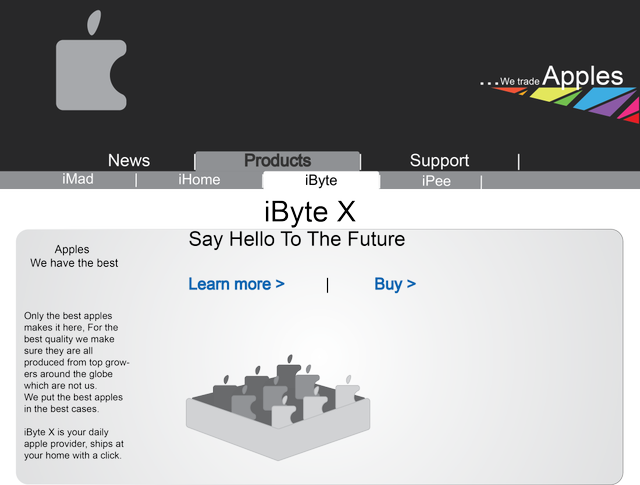
Arial
Probably the most recognizable of the loyalties free fonts in the world, you see this almost everywhere from the top tech brands of the likes of Microsoft, Apple to our own home platform Steemit. It is widely used and it is the most common typeface around the world, it serves well for readability and sharpness.
Today I will use this font to create an illustration that will display the professional look that Arial is used to achieve for those that embrace it. So I will go and try to make a mobile page for a huge firm, Apples.
The Arial typeface was designed in 1982 by a 10-person team, led by Robin Nicholas and Patricia Saunders, for Monotype Typography. It was created to be metrically identical to the popular typeface Helvetica, with all character widths identical, so that a document designed in Helvetica could be displayed and printed correctly without having to pay for a Helvetica license